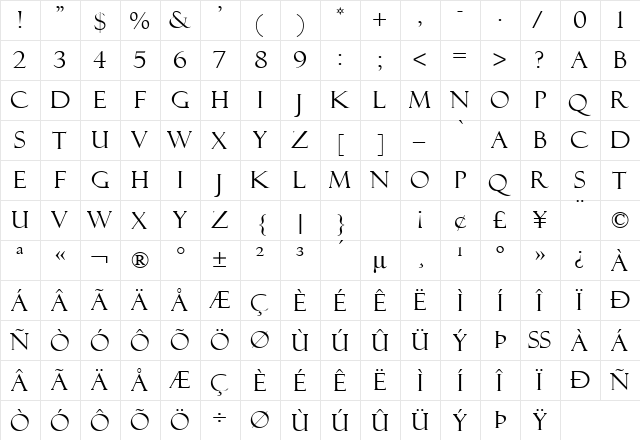
Felix Titling MT Regular
Design Context for Felix Titling MT Typeface
Felix Titling MT offers clean, dependable letterforms without strong stylistic allegiance, making it a practical choice for designers who need flexibility.